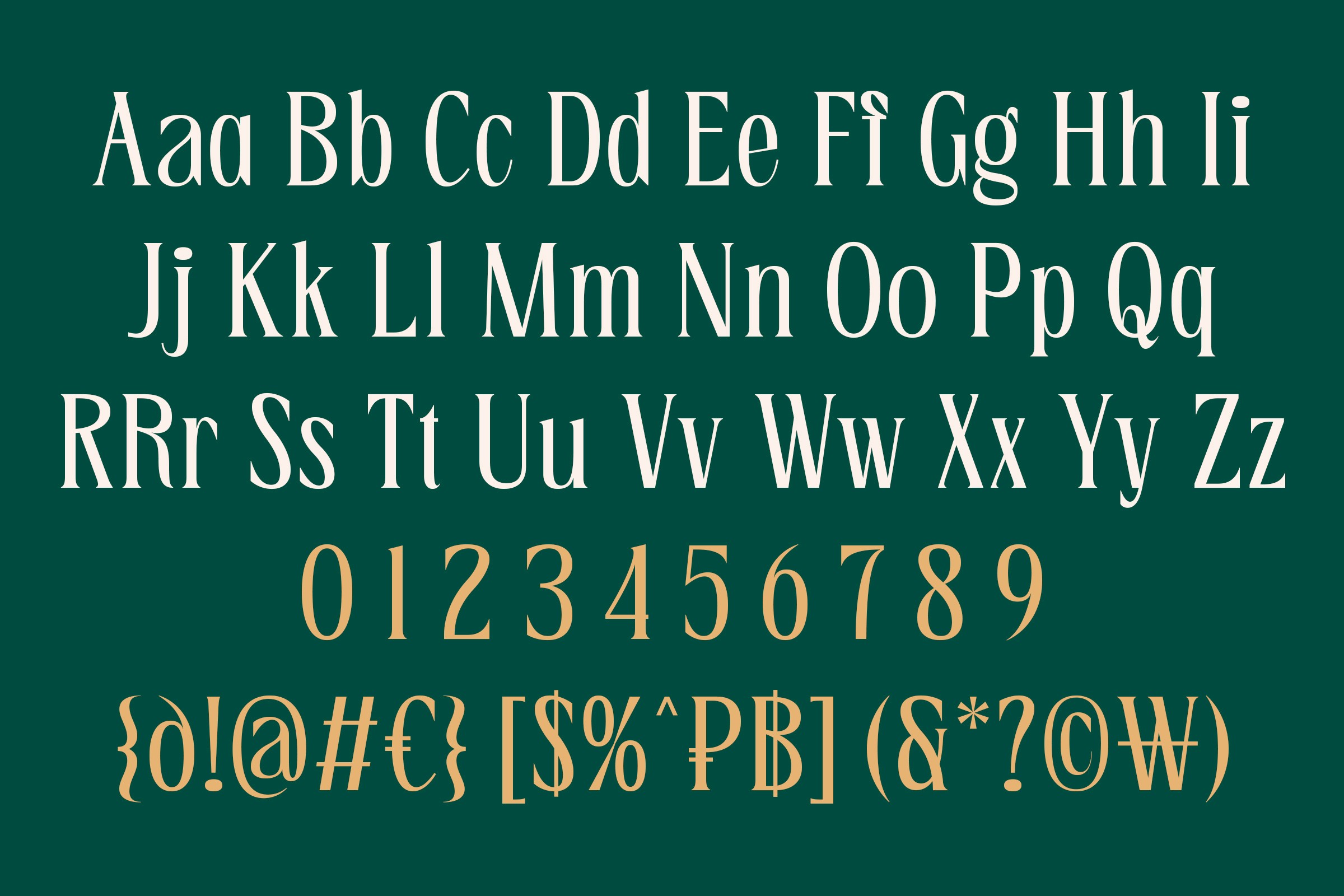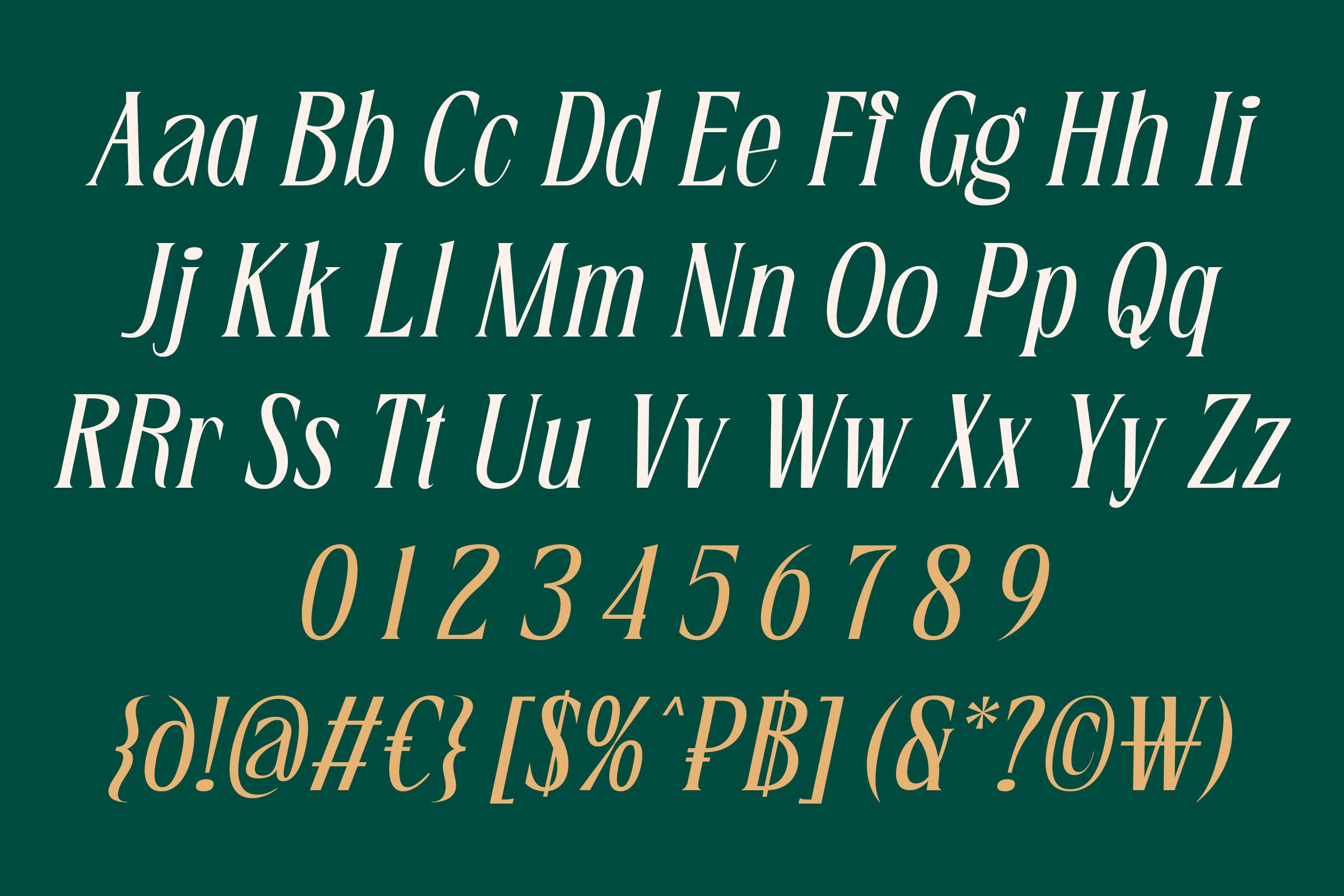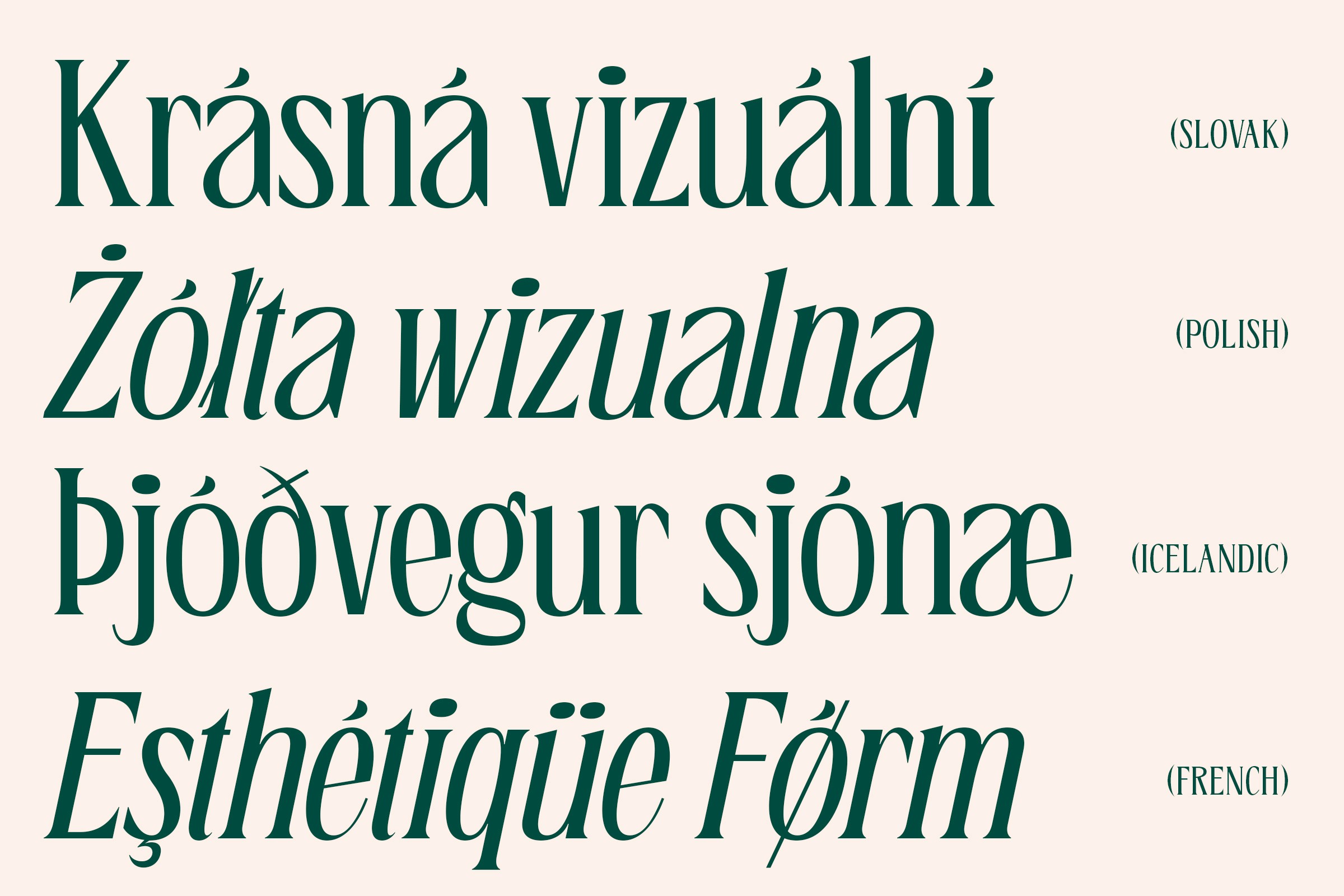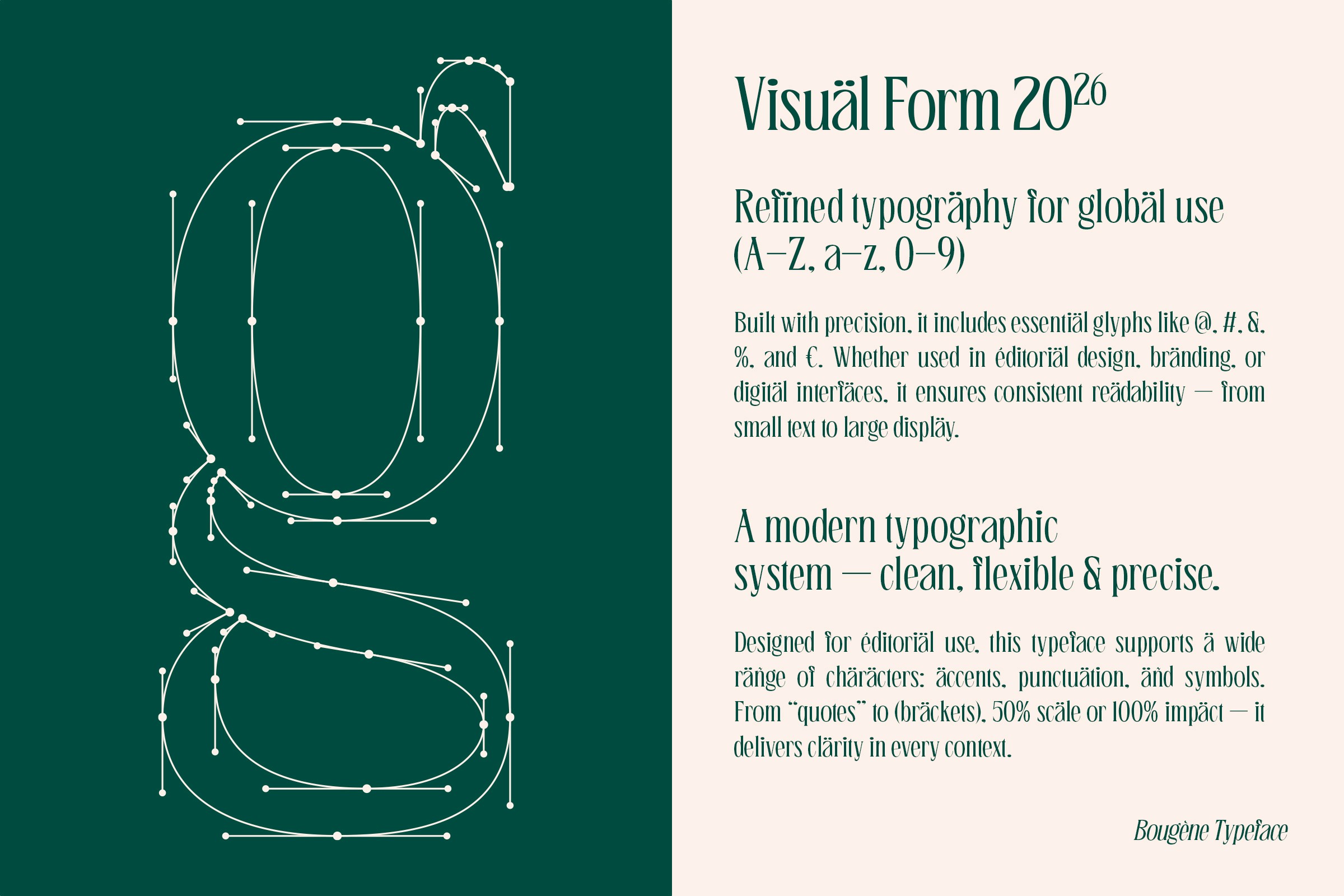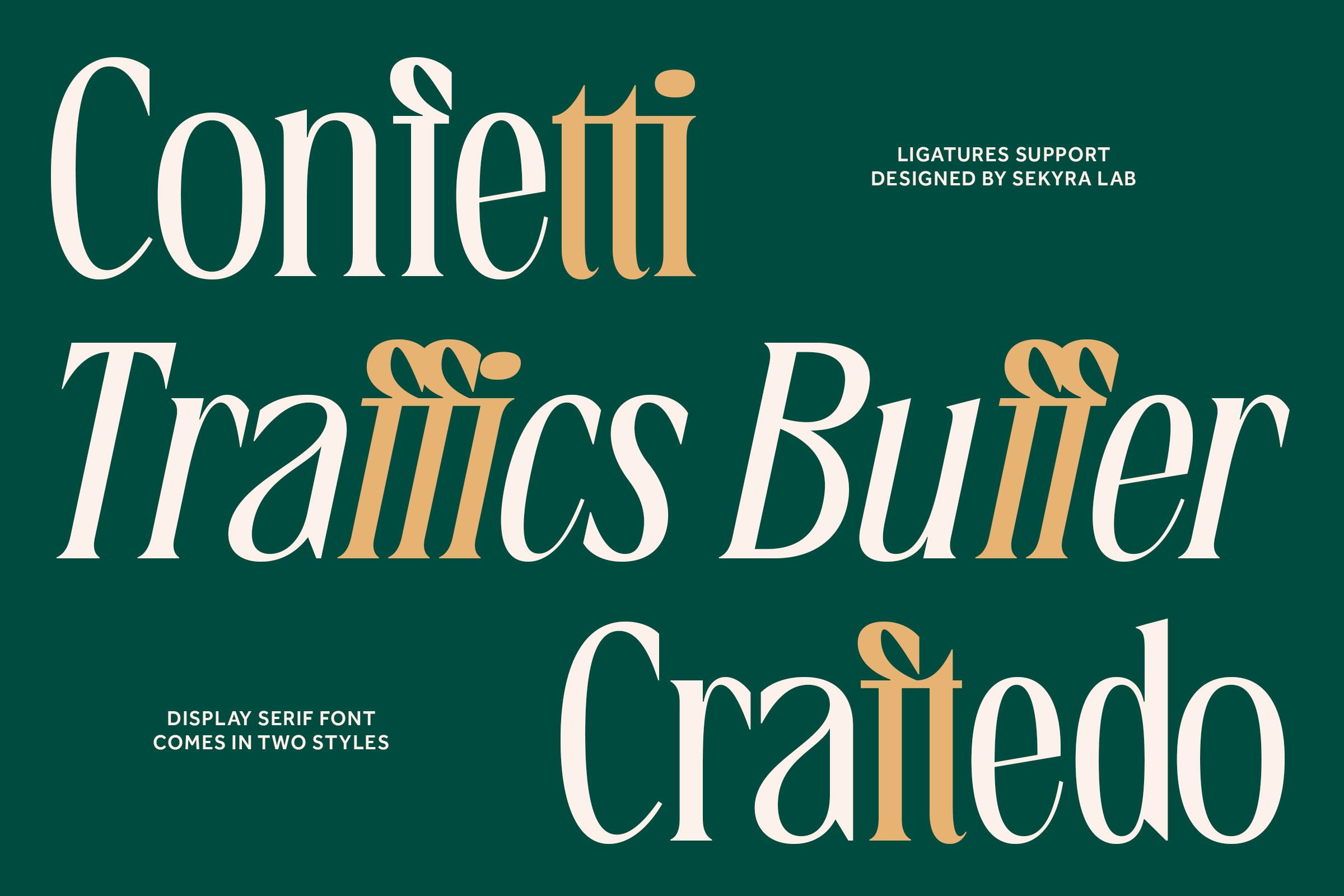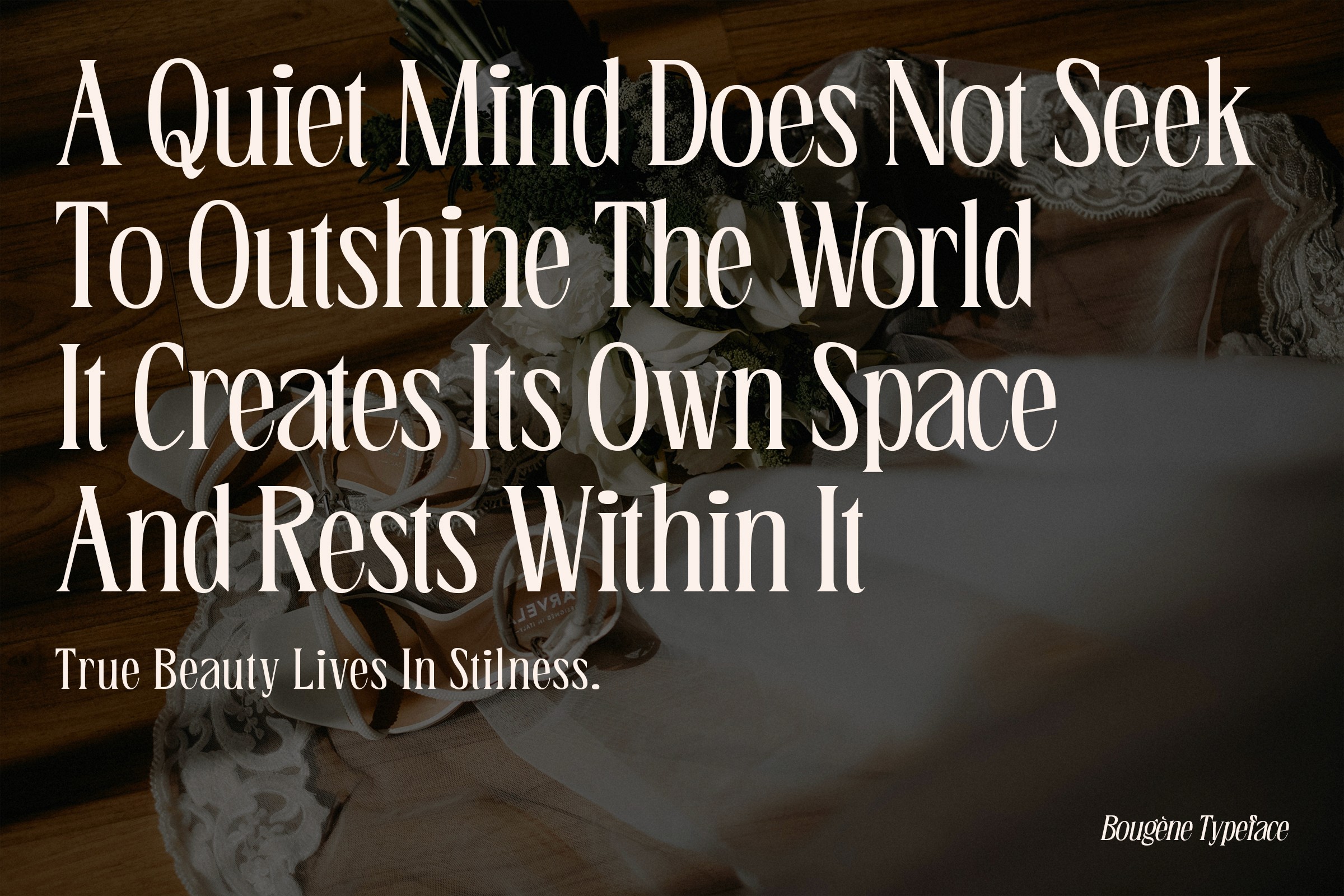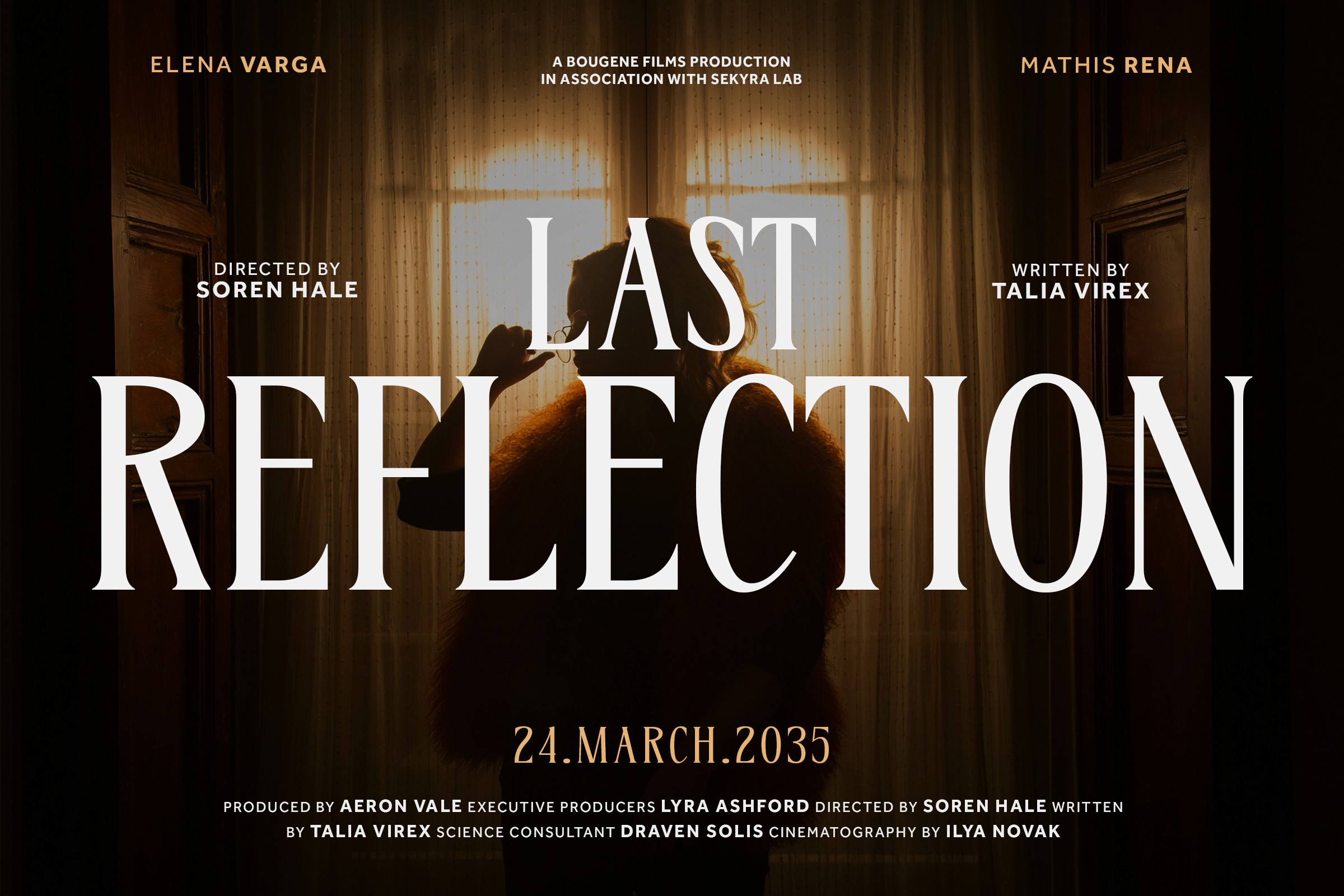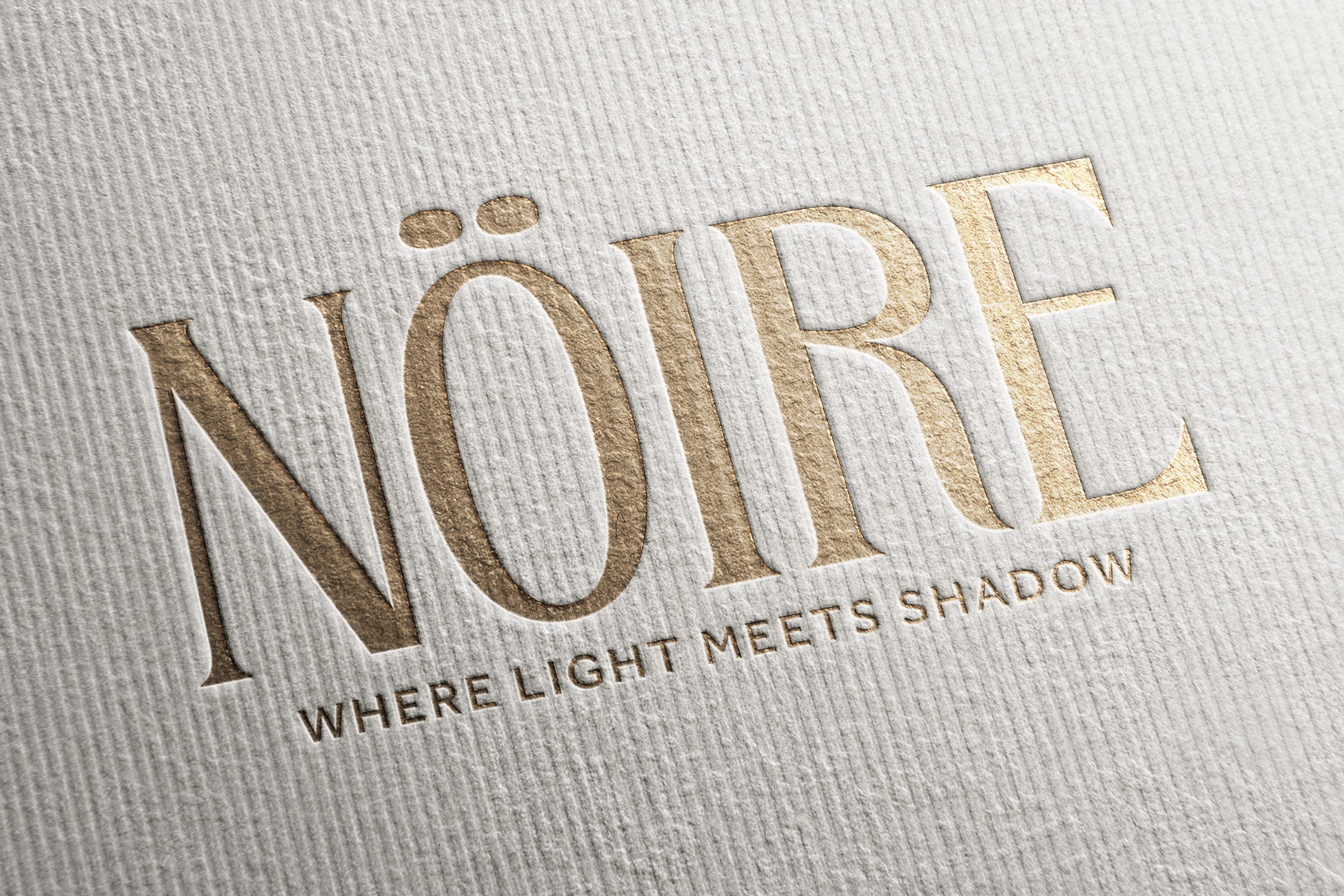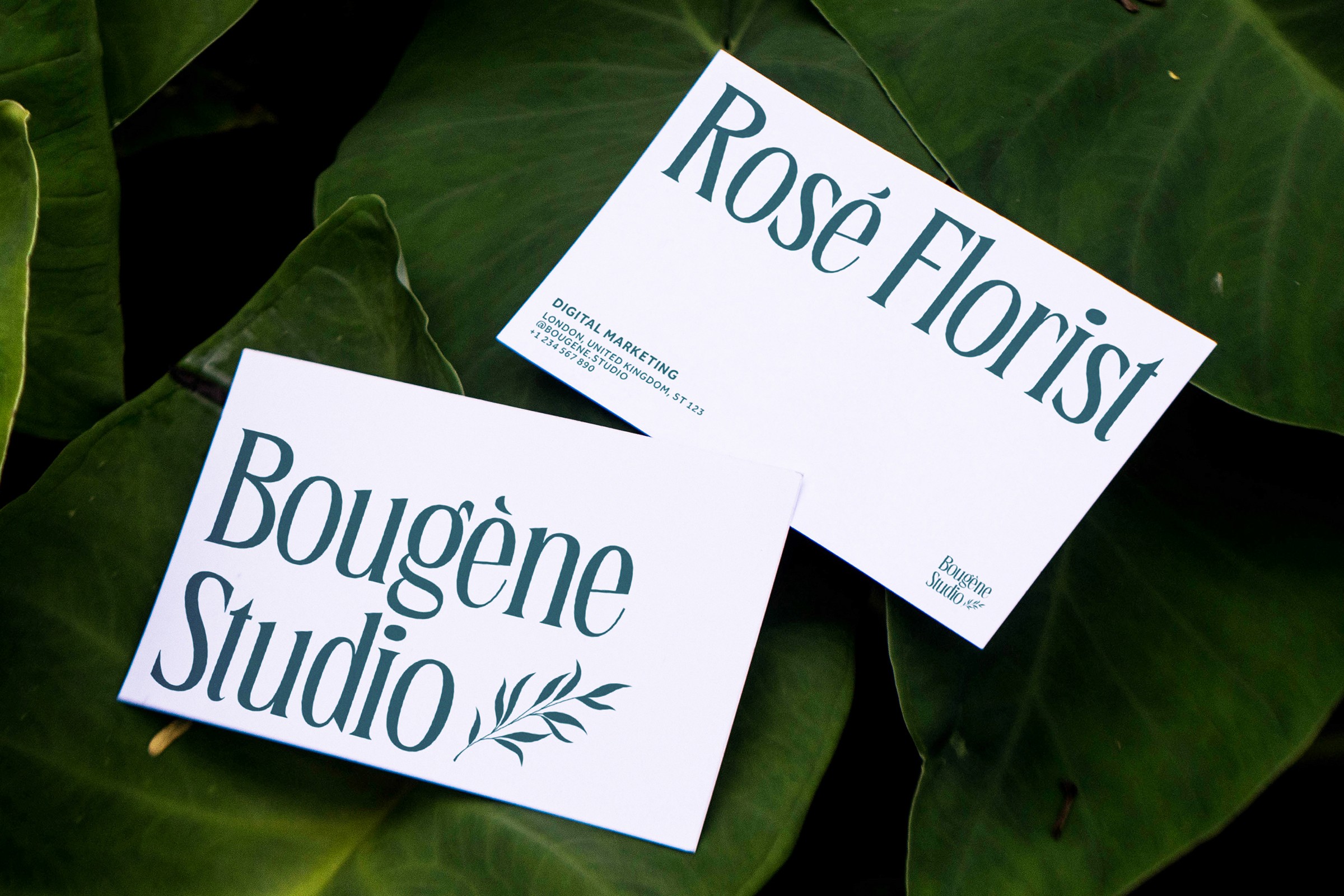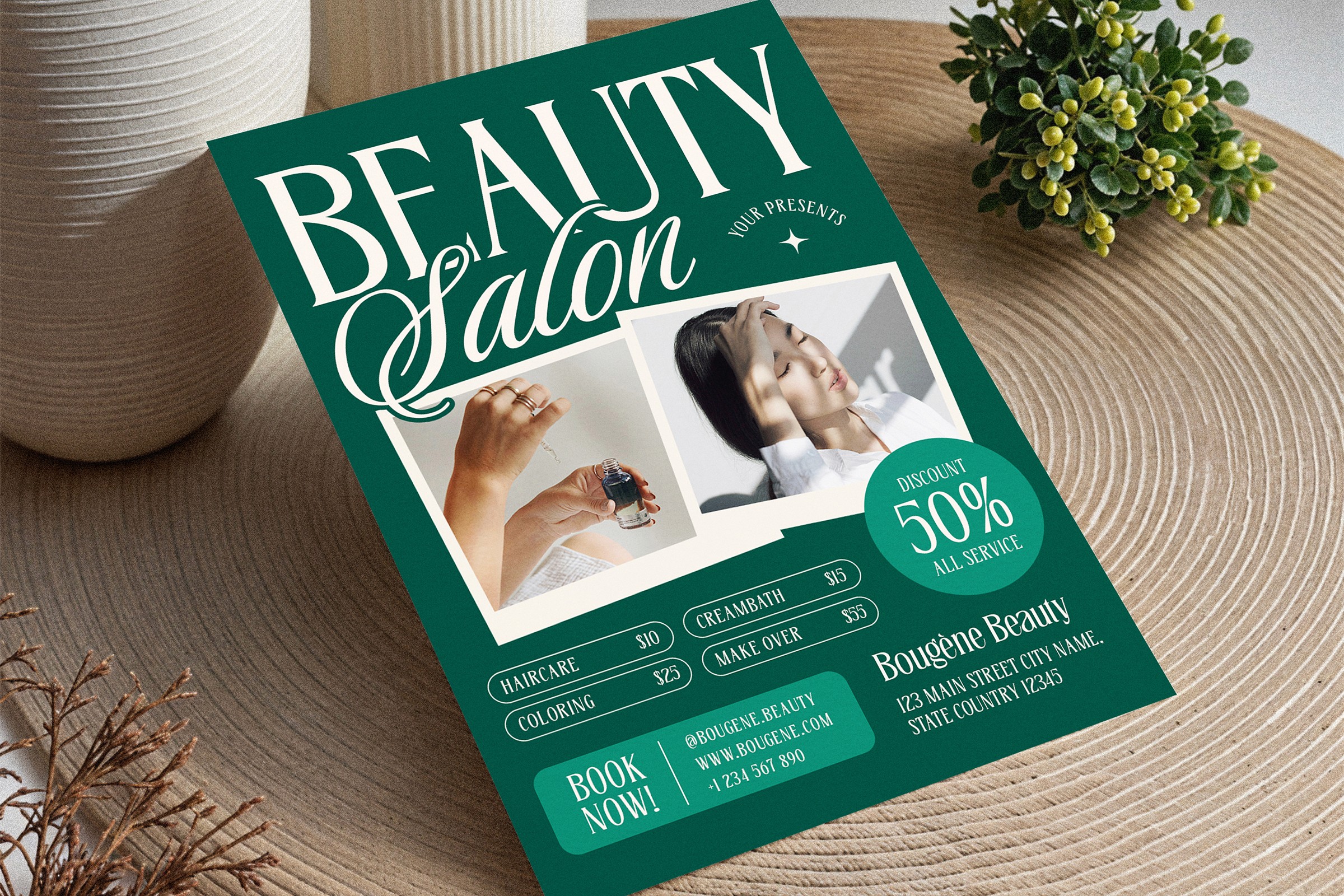
Bougene Font
Display Serif
Bougène is a refined display serif that blends classical elegance with contemporary precision. Designed with delicate contrast and sculpted curves, it brings a graceful presence to editorial layouts, luxury branding, and sophisticated visual identities.
Key Features
Elegant display serif with refined contrast
Sculpted curves and expressive diacritics
Balanced letterforms for readability and style
Suitable for both modern and classic compositions
Multilingual support
Perfect For
Editorial design
Luxury branding
Fashion & beauty campaigns
High-end packaging